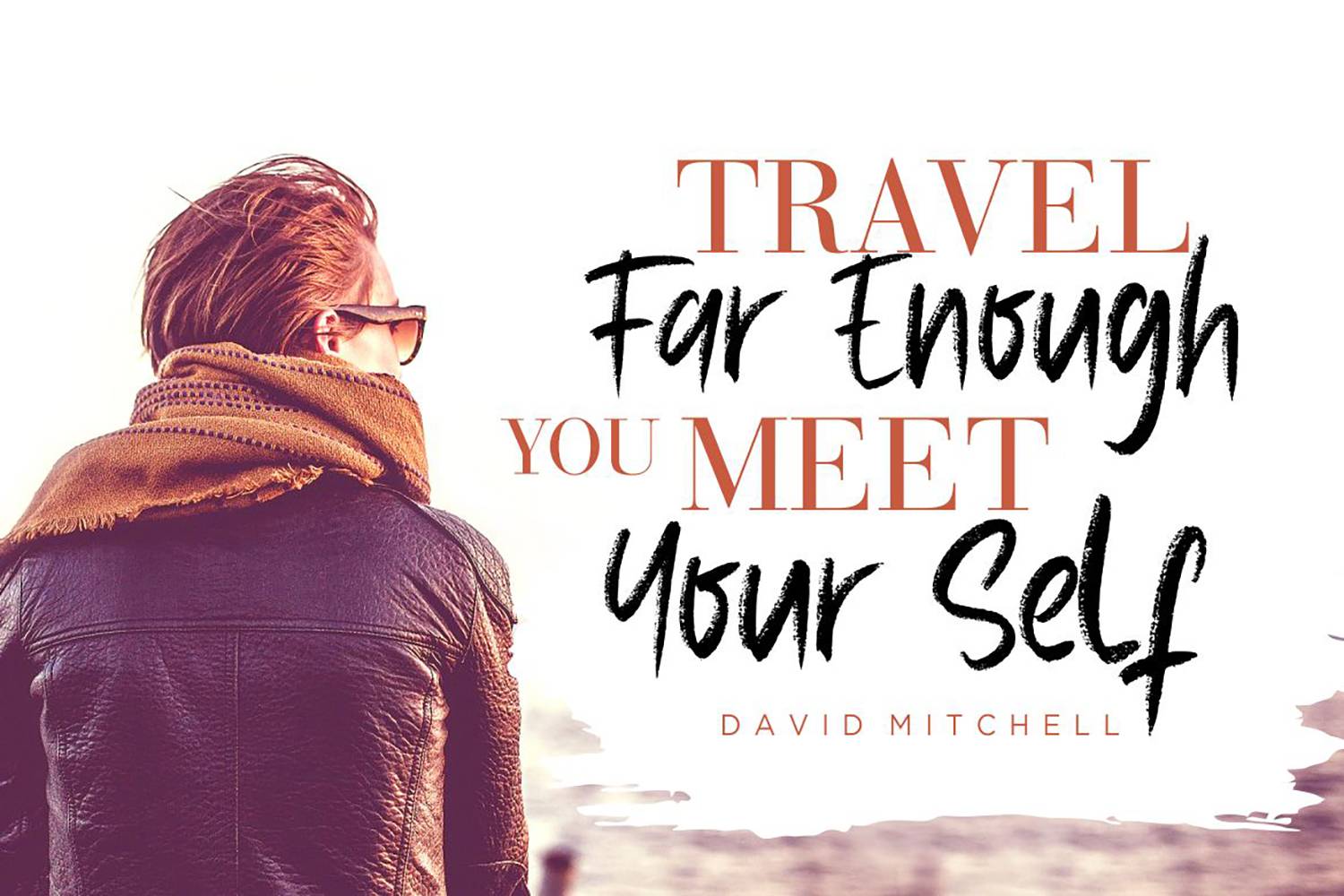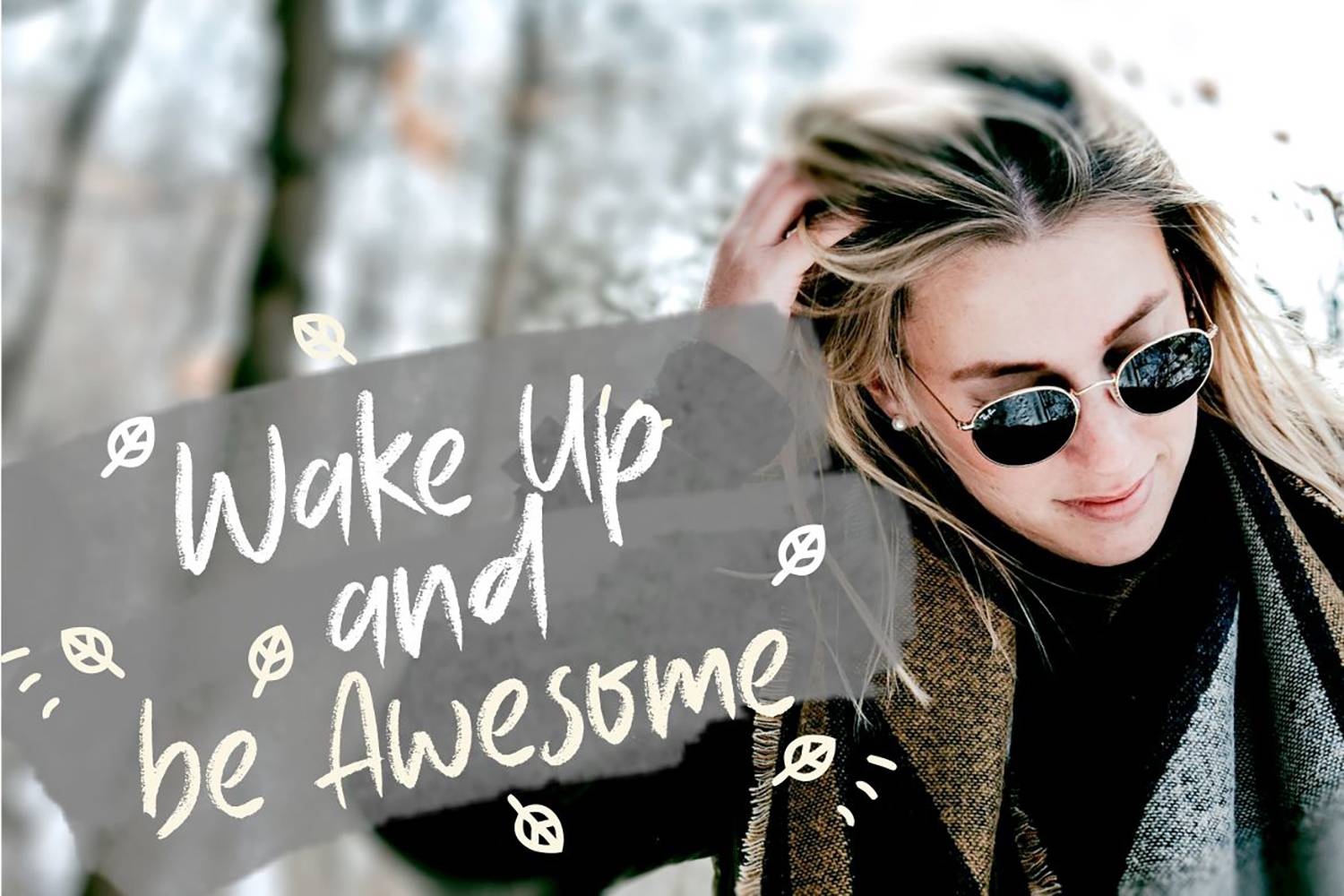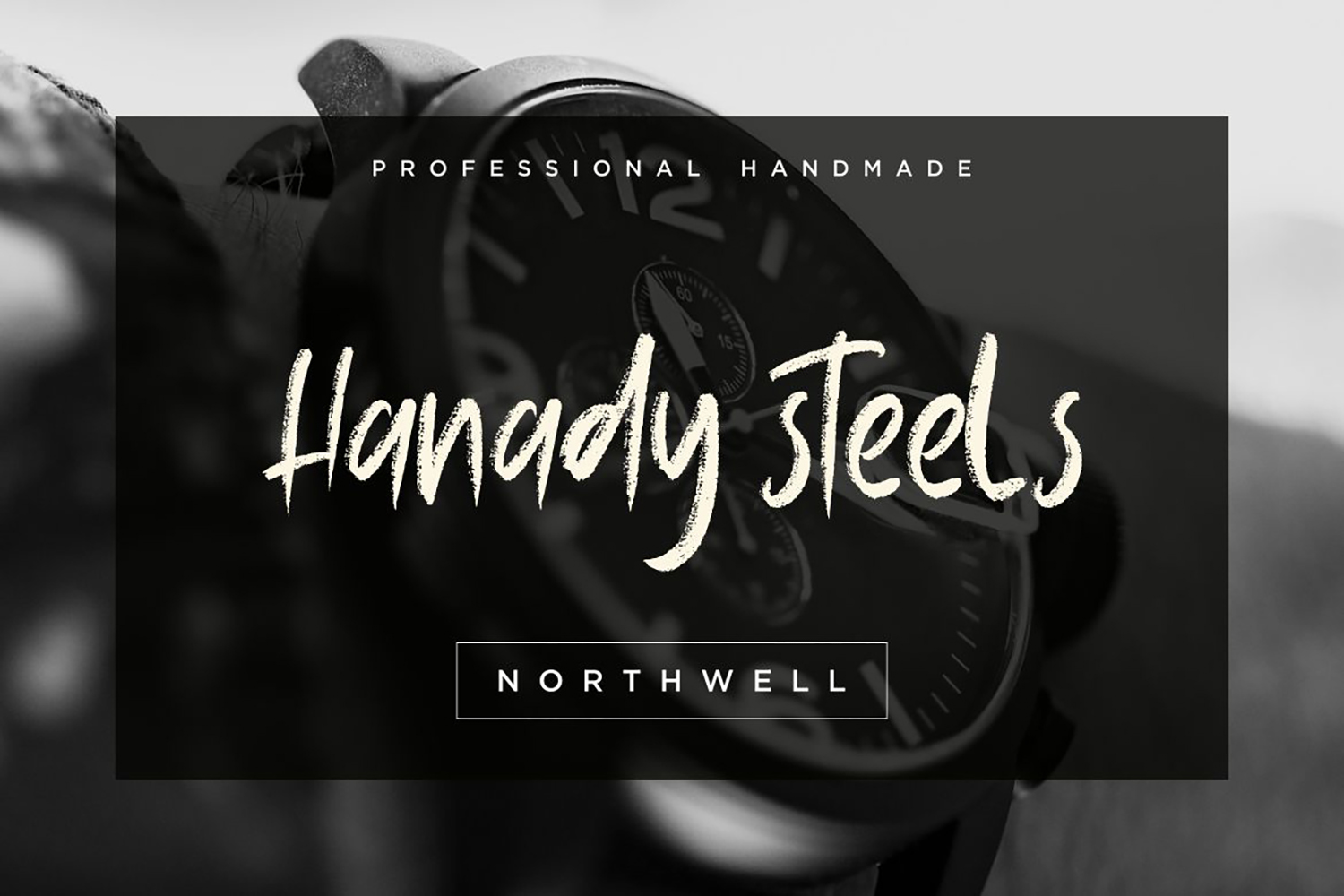
Lazy Jumps is a lively, handwritten script font with a playful and casual character. Its irregular, brush-style strokes and varied line thickness give it an energetic, spontaneous feel, perfect for creative projects, informal branding, and eye-catching headlines. This font works well where a personal, friendly touch is desired, such as in invitations, posters, or social media graphics.
Lazy Jumps Font
About Lazy Jumps Font
| Font family | Lazy Jumps Font |